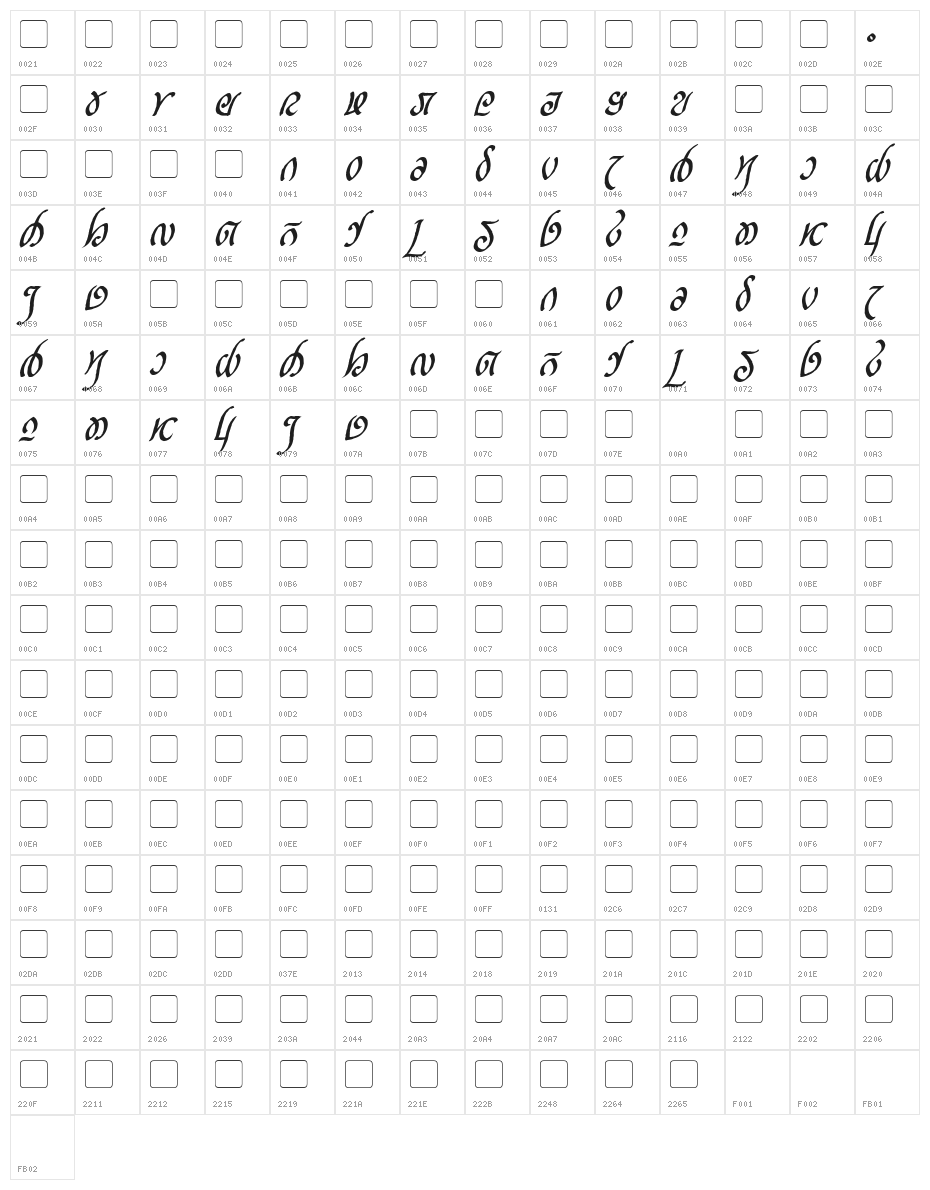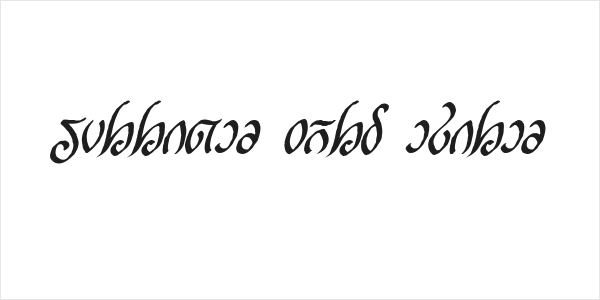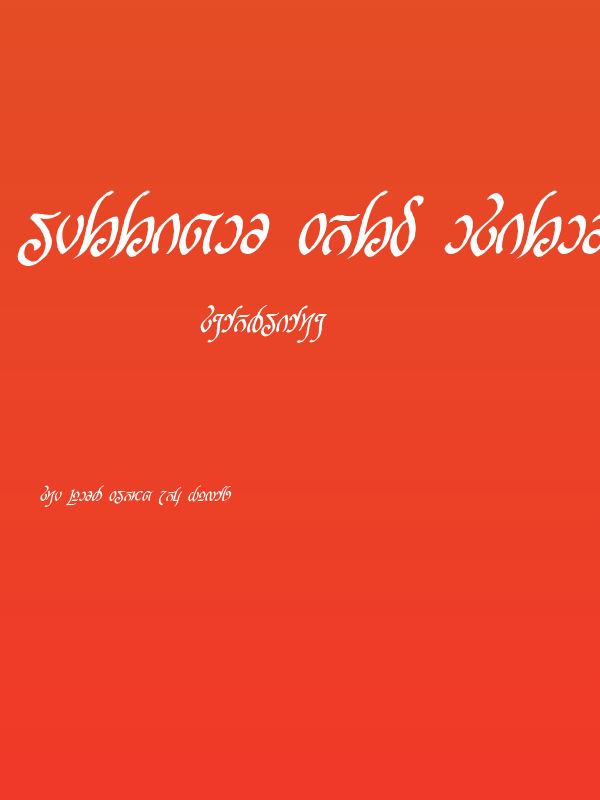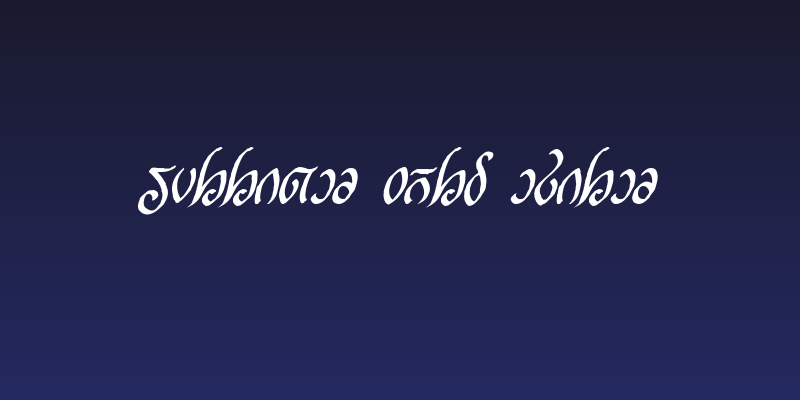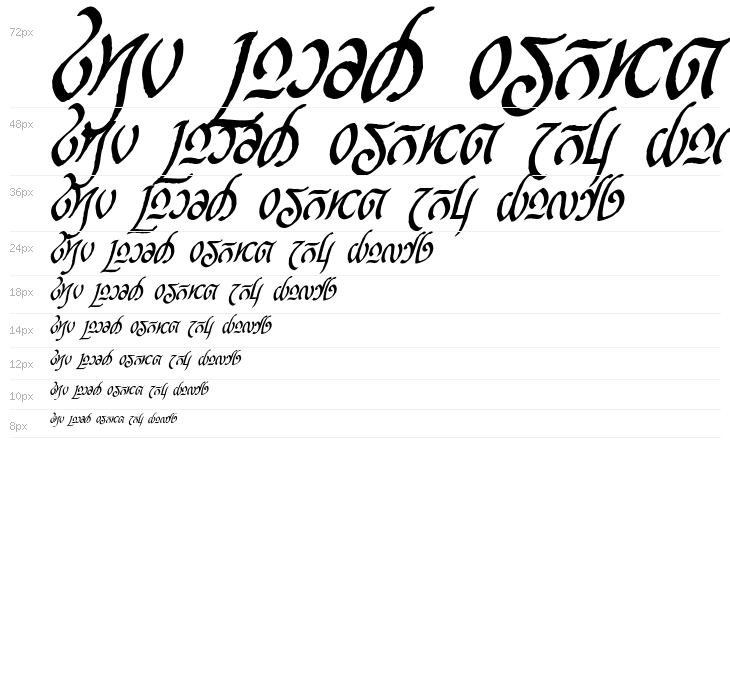
Rellanic Bold Italic Font
Rellanic Bold Italic Description
This font features a bold and italicized style with a calligraphic flair, characterized by its flowing, cursive-like strokes. The letters exhibit a dynamic and energetic appearance, with each character connecting smoothly to the next. The overall design is reminiscent of handwritten script, offering a sense of elegance and sophistication. The boldness of the strokes ensures high visibility, making it suitable for impactful text displays. The italic slant adds a sense of motion and fluidity, enhancing the expressive nature of the font.